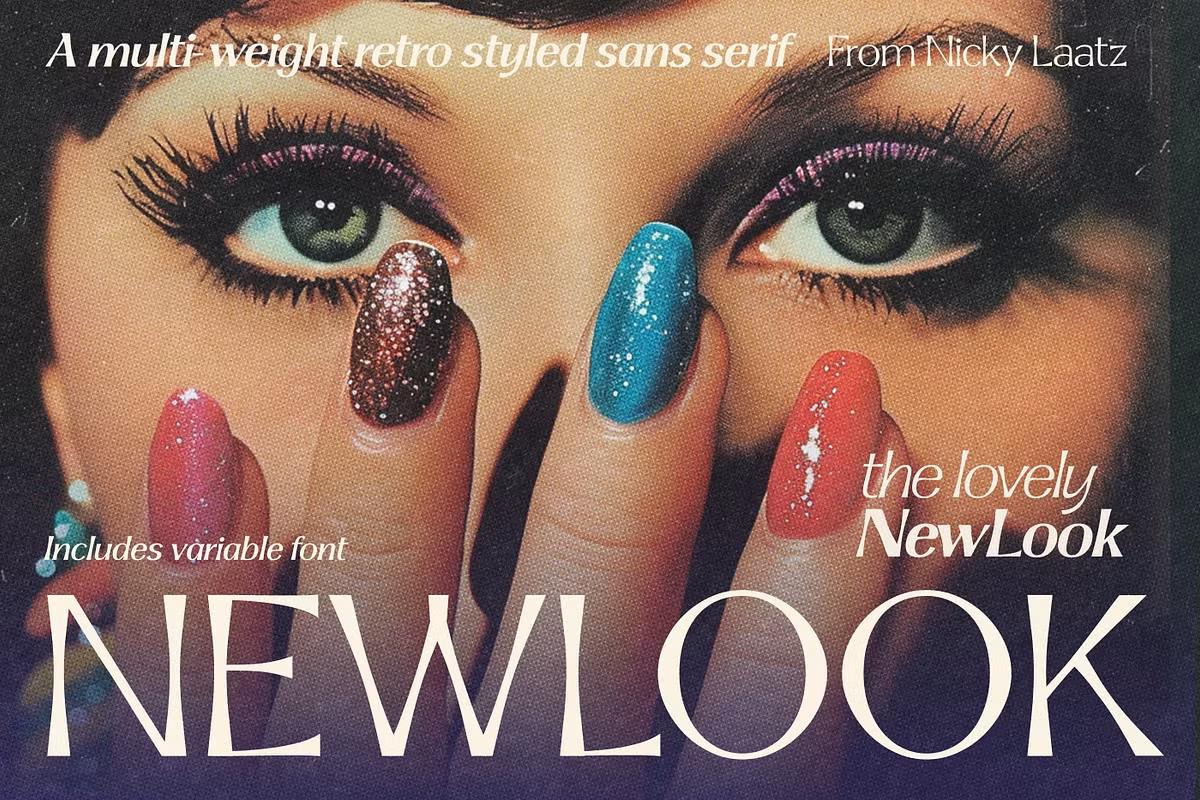
Bring a fresh, modern feel to your designs with New Look Typeface Free Download. This sleek, contemporary sans-serif typeface is perfect for logos, branding, websites, editorial designs, and more. With its clean lines and minimalist aesthetic, New Look offers a versatile option for both professional and creative projects.
The font features well-balanced letterforms and smooth curves, ensuring readability while adding a modern, stylish touch to your typography. It includes uppercase and lowercase letters, numerals, punctuation, and multilingual support—making it ideal for testing a range of design concepts and layouts.